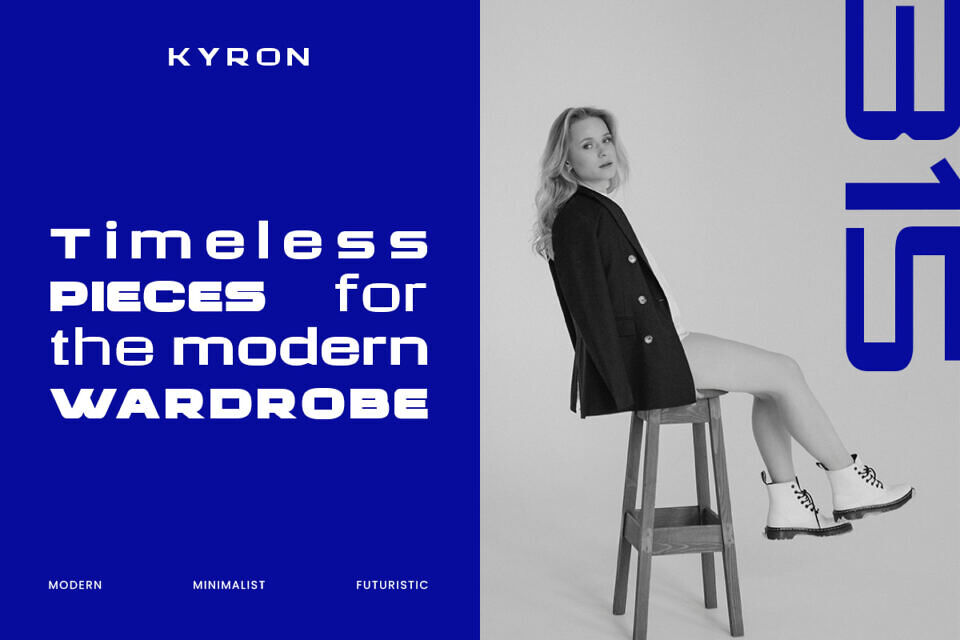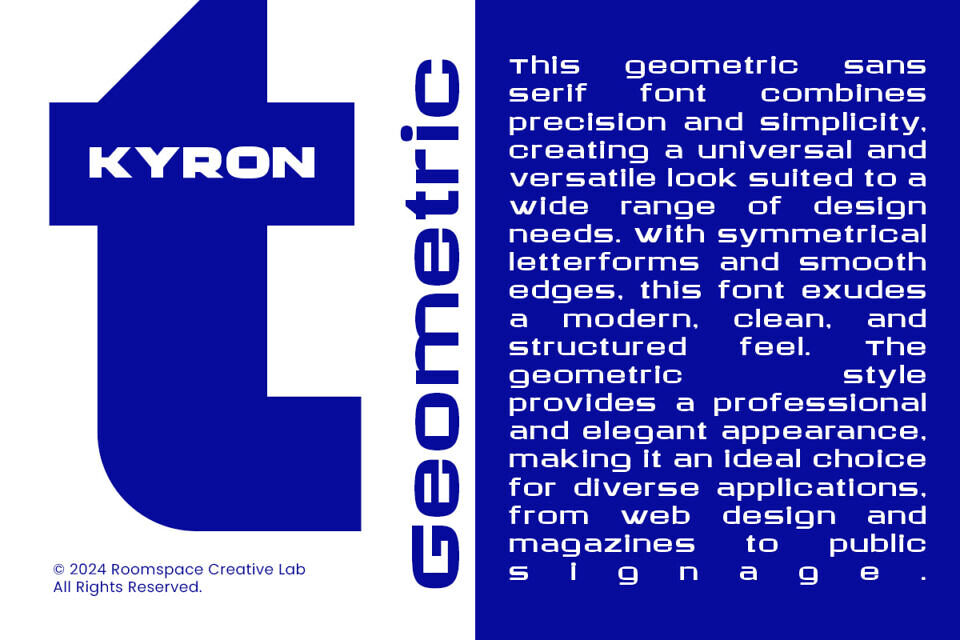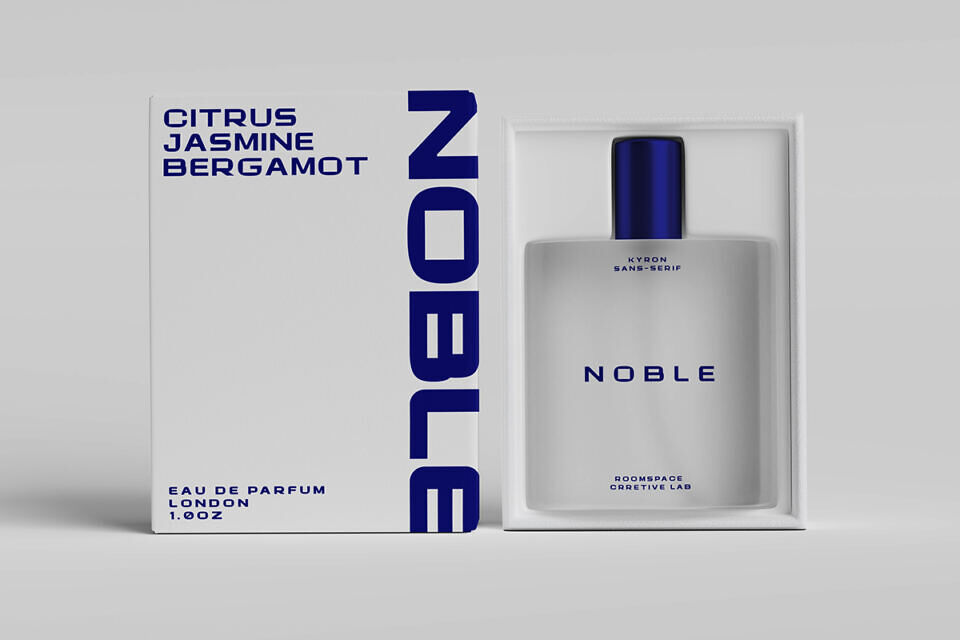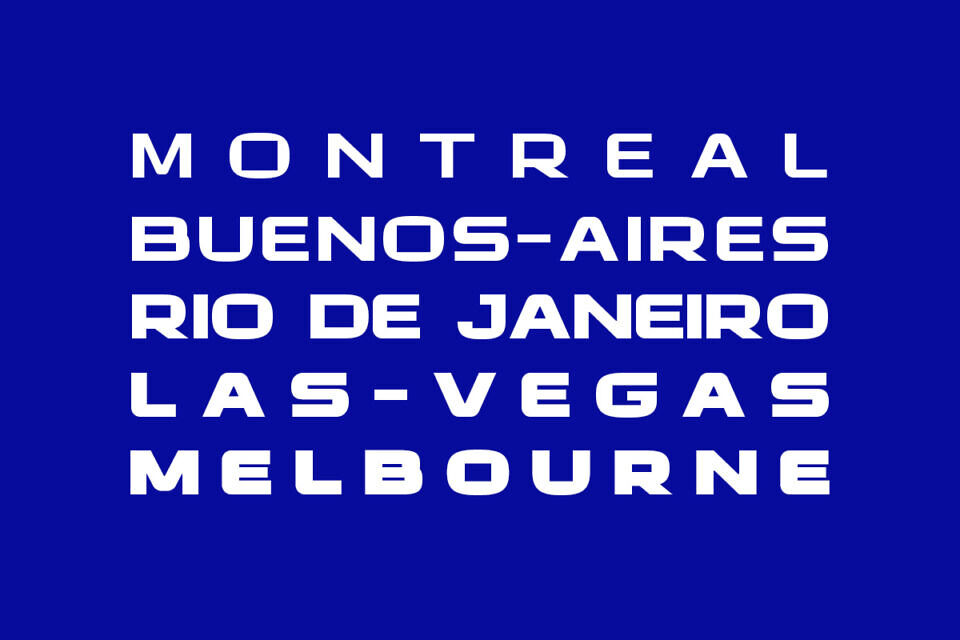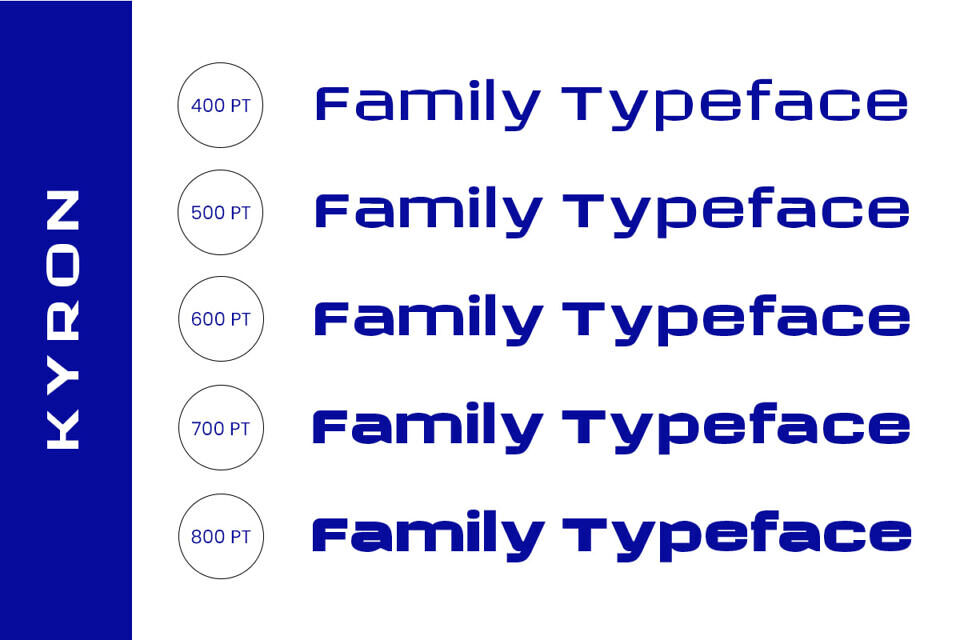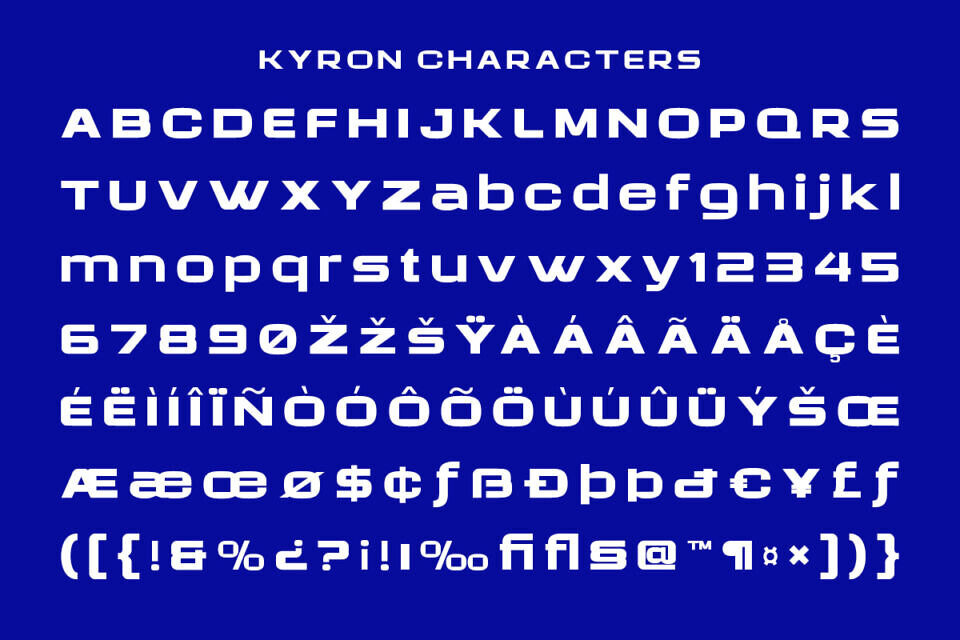
Kyron Font
Kyron is a new sans serif font family designed to bring a modern, professional edge to any project. With 5 distinct weights ranging from Regular to ExtraBold, this font offers the flexibility and versatility that designers and business professionals need.
Its clean lines and balanced structure make Kyron perfect for a wide range of uses, from branding and logo design to website and print applications.